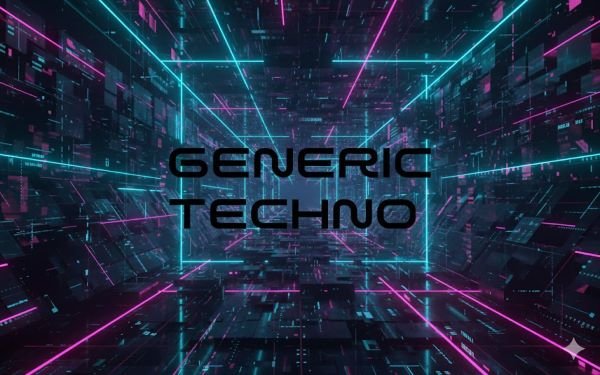
Generic Techno Font
Generic Techno Font is a sleek, wide geometric typeface created by NC Empire that delivers a clean, dynamic, futuristic vibe perfect for modern design needs. This display font excels in headlines, posters, logos, and large typography applications, making it especially fitting for automotive and technology-related content requiring meaningful, forward-thinking typography. With its bold geometric forms and contemporary aesthetic, Generic Techno Font brings sophisticated modernity to any project.